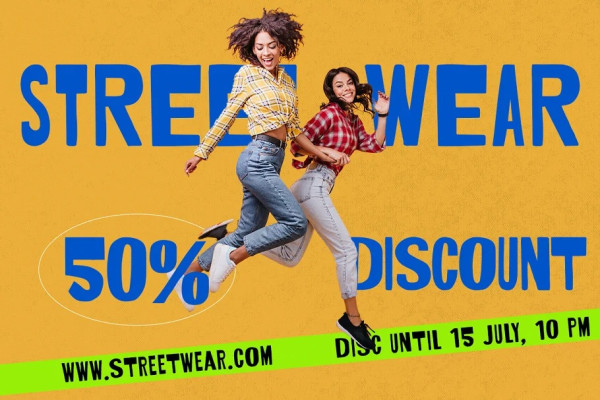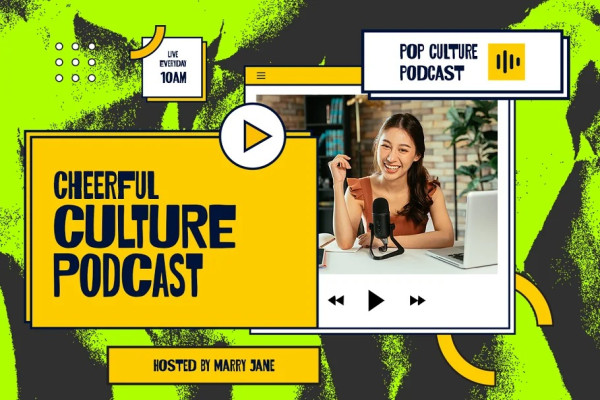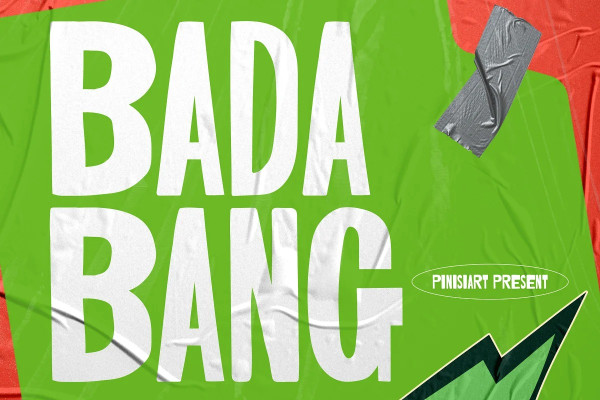
Bada Bang Font
BADA BANG Font – Display Font, this BADABANG font, an all-caps style, will burst energy all over your project! Suit perfect for youth books market, online games, extreme sport event posters, school supplies font, poster, movie title, youtube covers, youtube thumbnails, social media page covers, and so on…